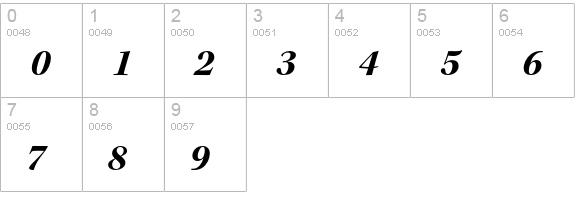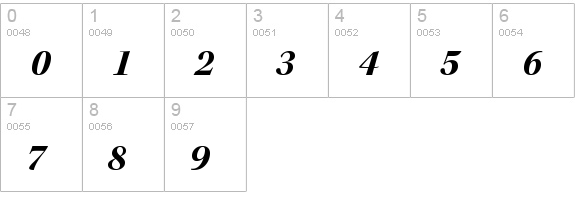
Kepler Std Bold Italic Subhead Font Details
Kepler Std Bold Italic Subhead is a strong, high-contrast, italic variant in the Kepler typeface family \xE2\x80\x94 well suited to headlines, attention-grabbing titles, and strong calls-to-action.
The Kepler Std Bold Italic Subhead font is a visually striking and versatile typeface that perfectly balances boldness and elegance. Its unique combination of boldness and italics create a powerful visual impact, making it perfect for subheadings, titles, and other attention-grabbing elements in your designs. This font exudes a sense of modernity and sophistication, making it ideal for a wide range of design projects, including branding, advertising, editorial design, and more. Its bold and italicized form adds a touch of drama and flair, elevating your designs to another level. The Kepler Std Bold Italic Subhead font is not only visually stunning but also highly legible, ensuring that your message is delivered with clarity and impact. Its clean and sharp lines make it easily readable, even at smaller sizes, while still maintaining its bold and eye-catching presence. What makes the Kepler Std Bold Italic Subhead font even more appealing is that it is available for free download at FontsMarket.com. This means that you can easily access and use this font in your design projects without any hassle or extra cost. Whether you're a professional designer or a hobbyist, this font gives you the opportunity to add a touch of professionalism and style to your work, without breaking the bank. With the Kepler Std Bold Italic Subhead font, you can let your creativity soar and create visually stunning designs that captivate and engage your audience. So why wait? Download this font for free at FontsMarket.com and unlock a world of possibilities for your design projects today.